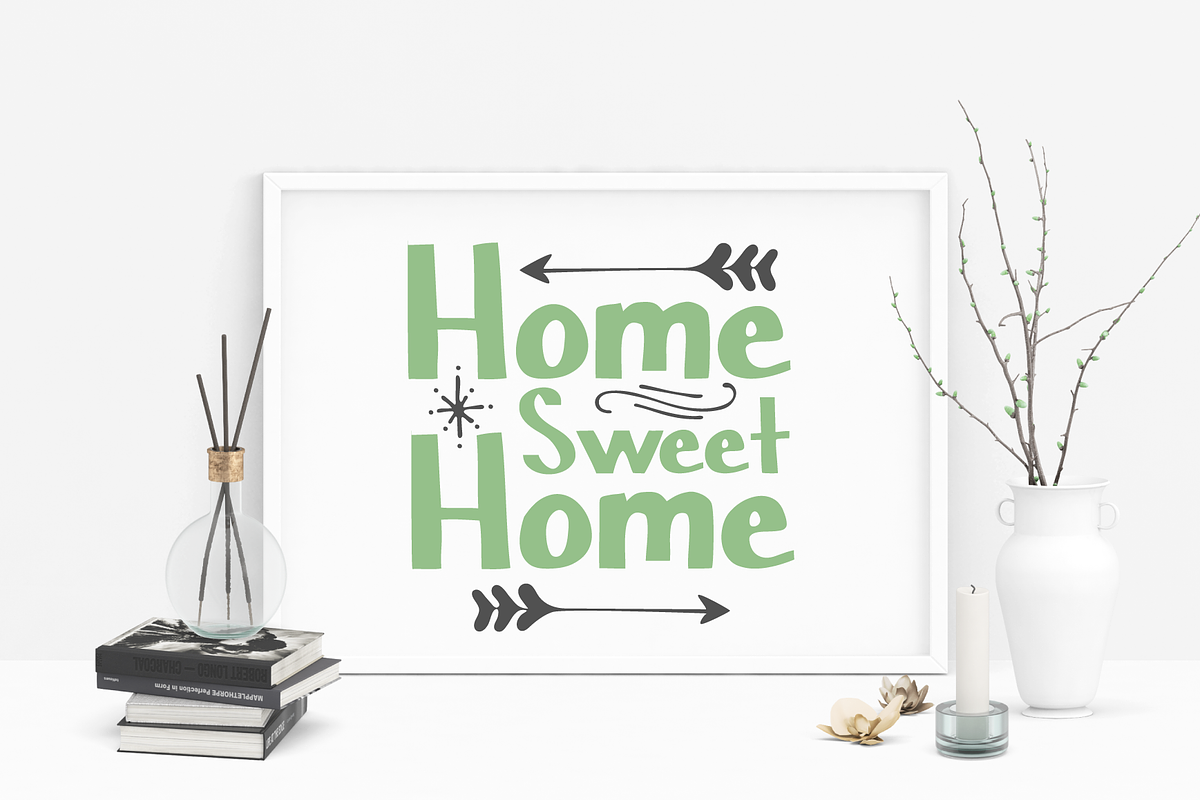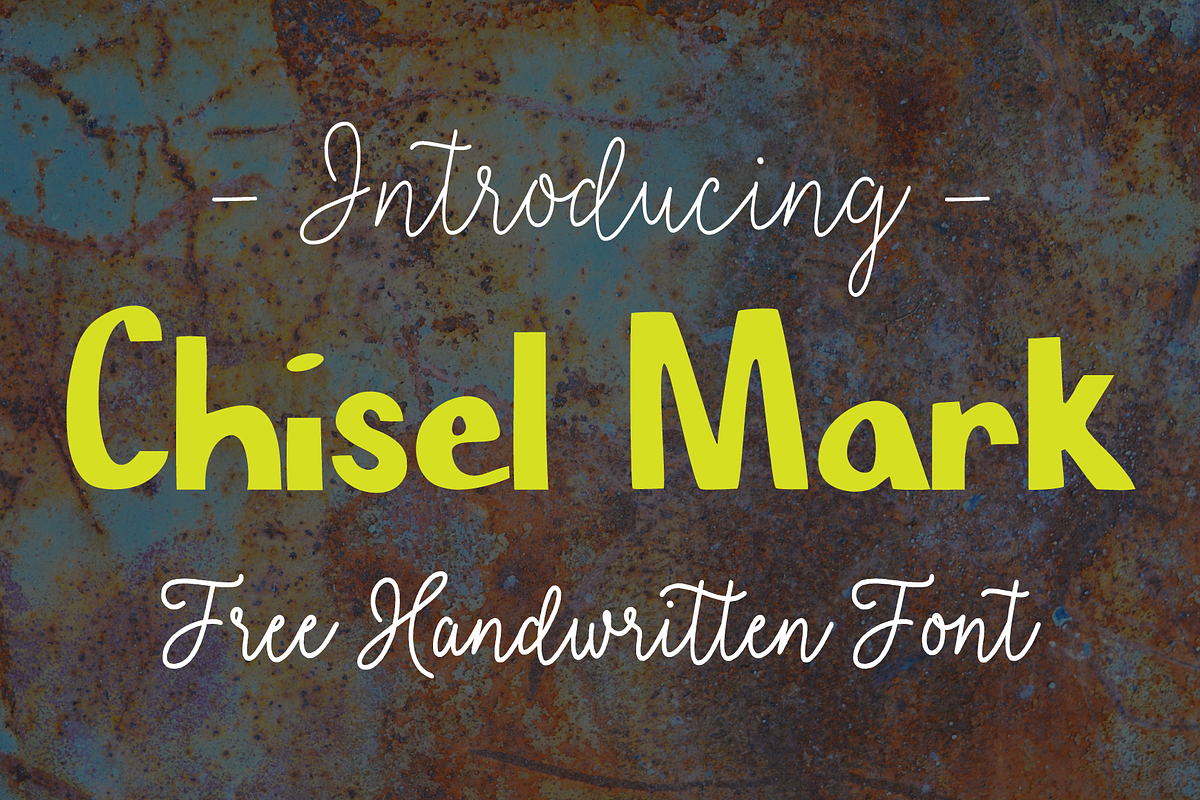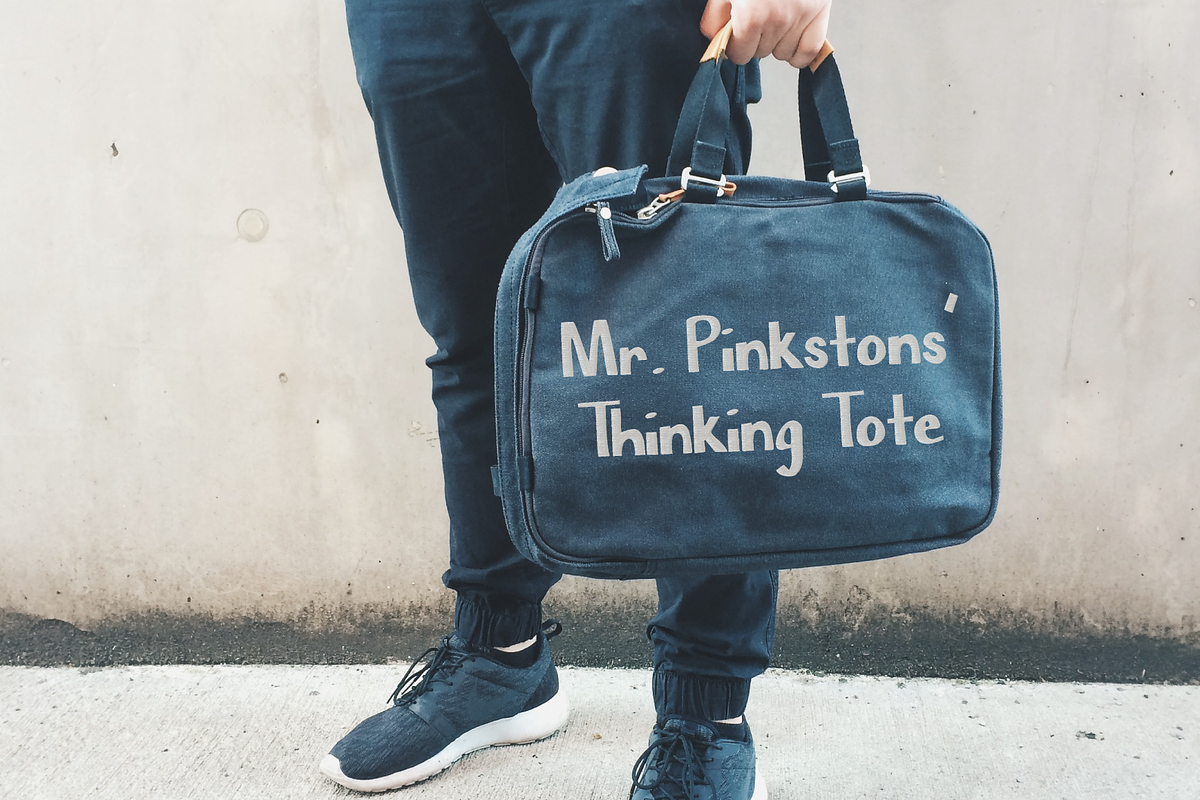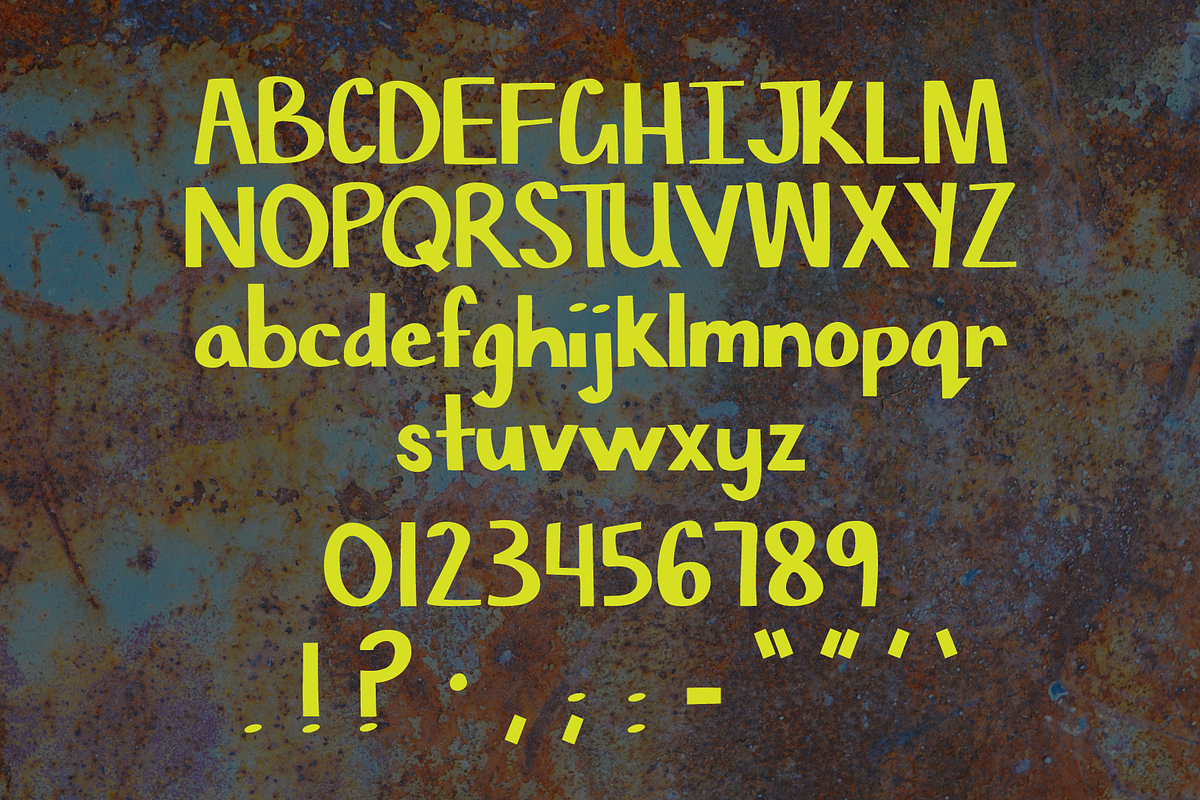
Chisel Mark Font
This handwritten font is perfect for invitations, wall prints, home decor, branding and much more. Our Open Font License allows crafters and designers plenty of freedom for creativity.
Why Chisel Mark Font is worth a look
Chisel Mark Font by SavanasDesign fits naturally into Branding, posters, packaging, typography.